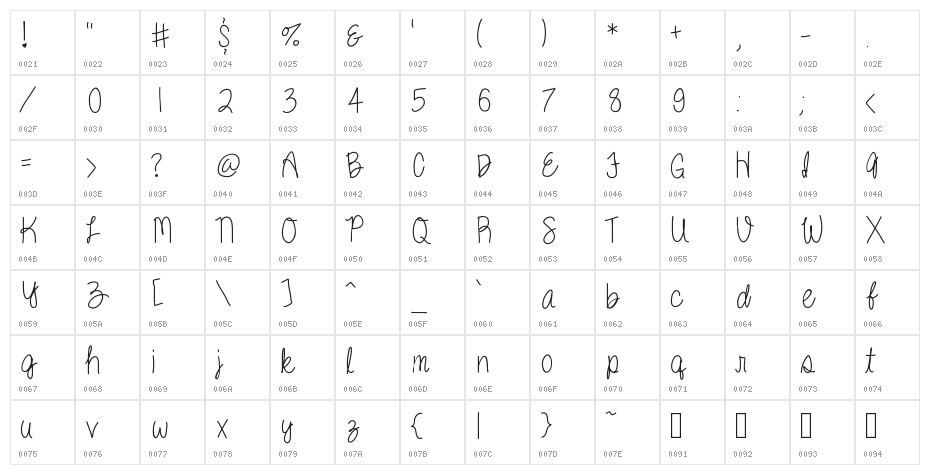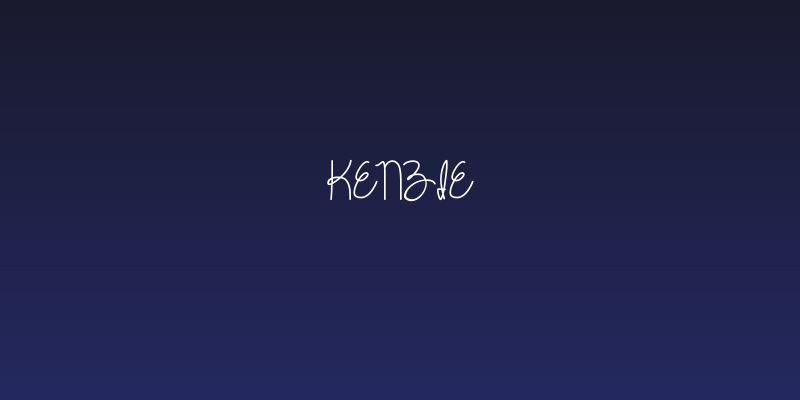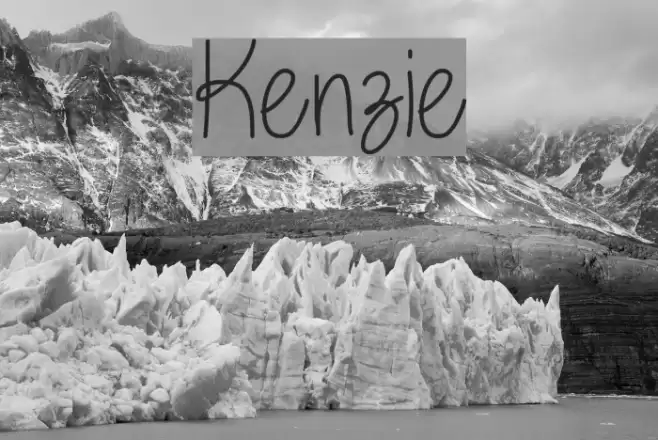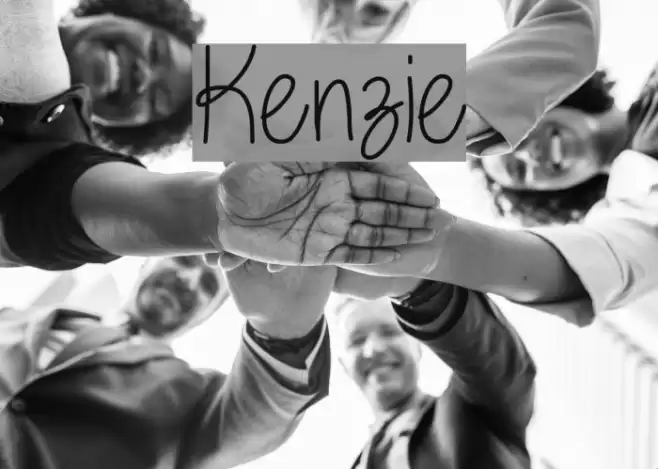
Kenzie Font
Kenzie Description
This font features a playful and whimsical handwritten style, characterized by its fluid and flowing letterforms. The uppercase letters are tall and slender, with a slight slant that adds a dynamic feel. The lowercase letters maintain a consistent style, with rounded edges and a casual, informal appearance. The numerals are clear and legible, matching the overall aesthetic of the alphabet. Special characters are creatively integrated, maintaining the font's unique personality. This font's charm lies in its ability to convey a sense of friendliness and approachability, making it ideal for projects that require a personal touch.
| Overall Style | Casual, Playful |
| Use Case | Logos, Invitations, Personal Branding |
| Proposed Projects | Ideal for greeting cards, invitations, personal branding, and creative projects that require a friendly and approachable look. |